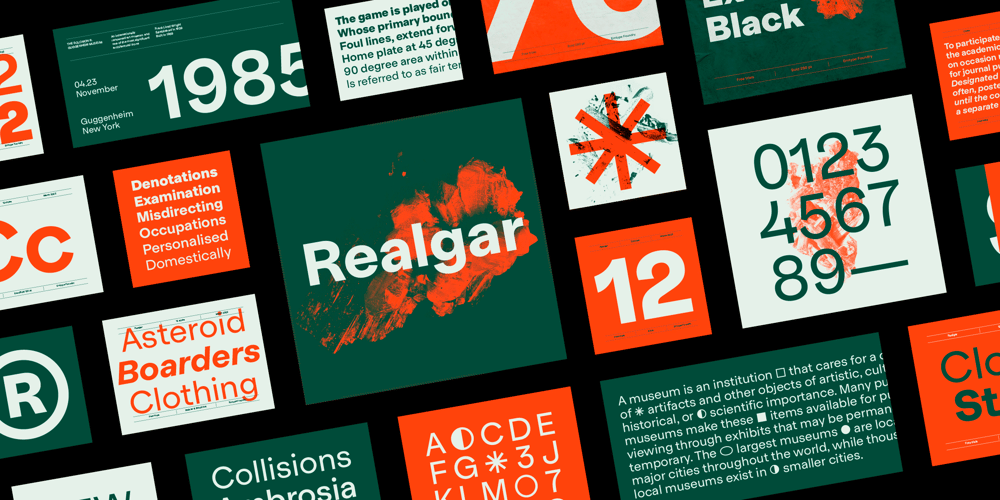
Realgar
Realgar font
Realgar Font Family was designed by Eduardo Manso and published by Emtype Foundry. Realgar contains 13 styles and family package options. Realgar is a generic and neutral typeface but with enough personality to be different, but not as much to be unfamiliar. The name refers to an ancient natural pigment, known for its vivid orange colour. It is a multipurpose typeface in an eclectic style that combines geometric and grotesque with some humanist touches. Some of its main features are the wide proportions, closed apertures and idiosyncratic numbers that make Realgar stand out. In addition, the rounded dots convey a friendly and contemporary look. A Variable Font version is included with the family or as a separate style.